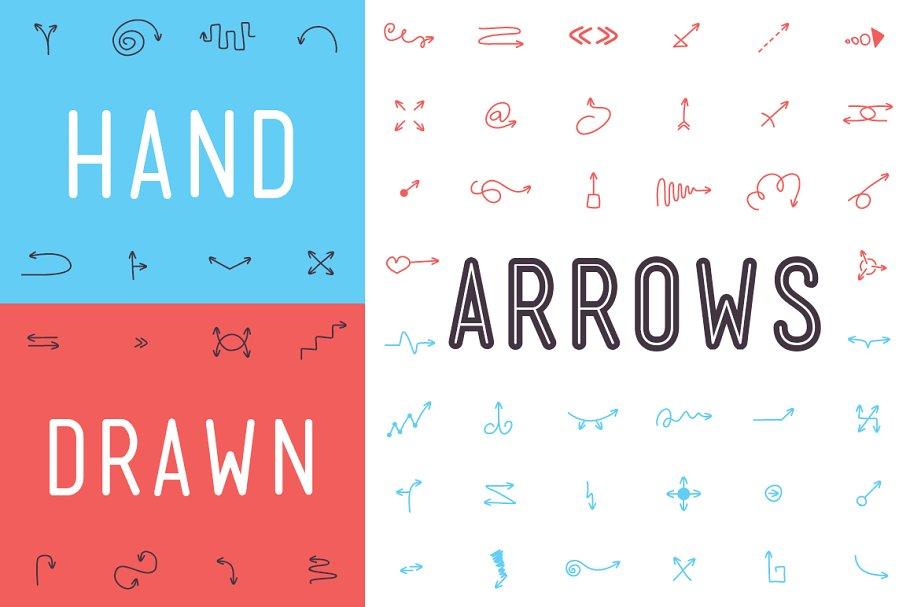
Hand Drawn Arrows Font Description
Hand Drawn Arrows is a unique dingbats font. Let’s say you’re working on a project and need a quirky arrow with a human touch. Instead of wasting your time making one from scratch, why not use this font? It’s fast, easy, and simple.